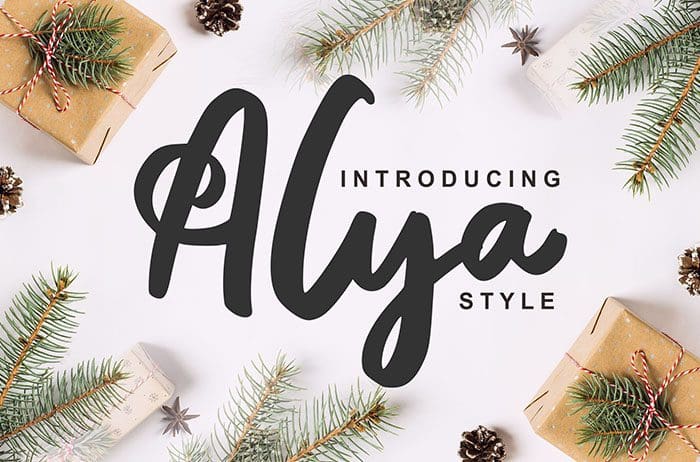
Alya Brush Font
Alya Brush Font is a cool and modern script with a modern style. Perfect and ideal for logotype, quotes, packaging, flyer, poster, social media banner, etc. Thanks to Vunira for sharing this font. Take a look at this portfolio for more of his stunning fonts.